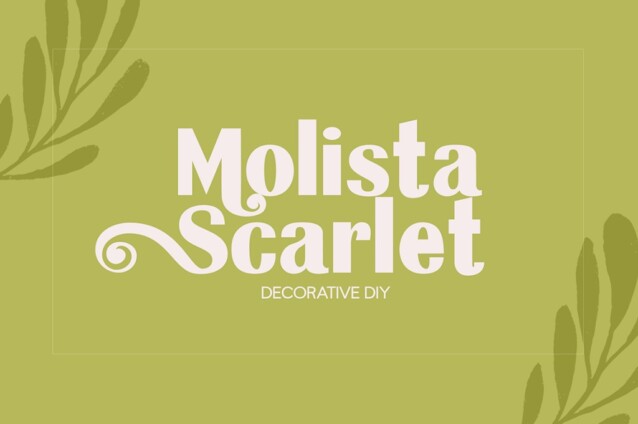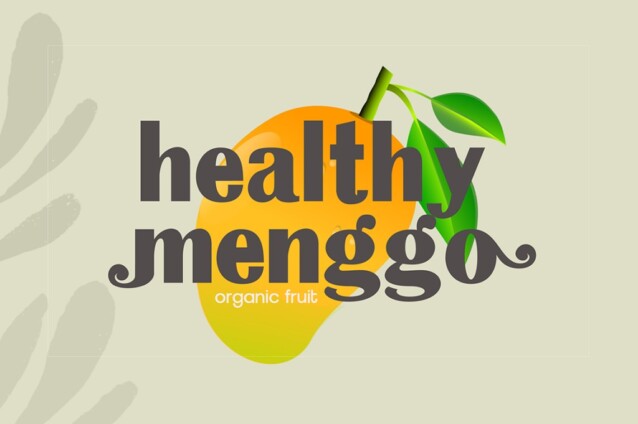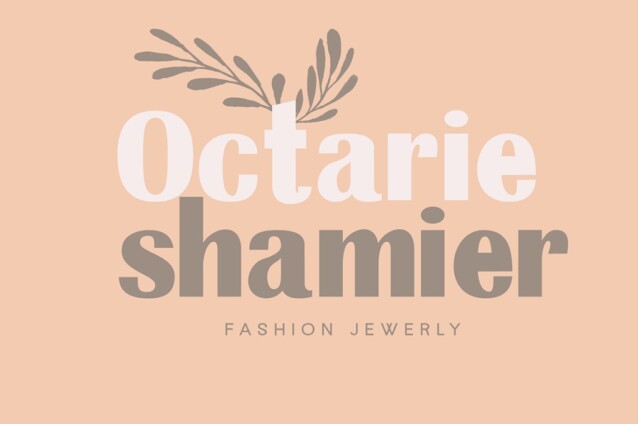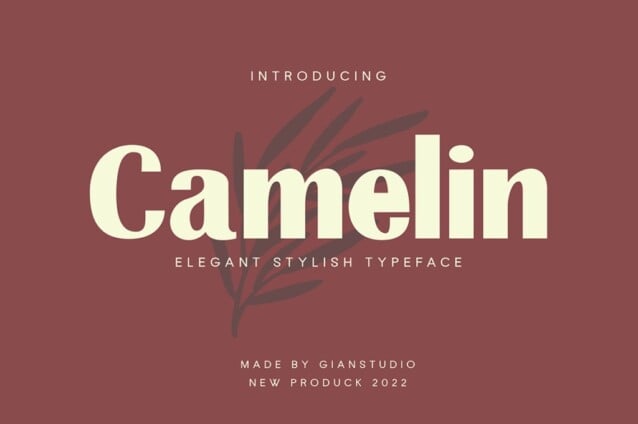
Camelin Font
Camelin Font is a typeface that breaks the mold, offering a fresh perspective in the realm of sans-serif fonts. You will get classy, elegant, and certainly unique logos with this font. it is perfect for handling design jobs that cover a wide range of types such as elegant projects, luxurious branding, wedding invitations, poster design and so on.